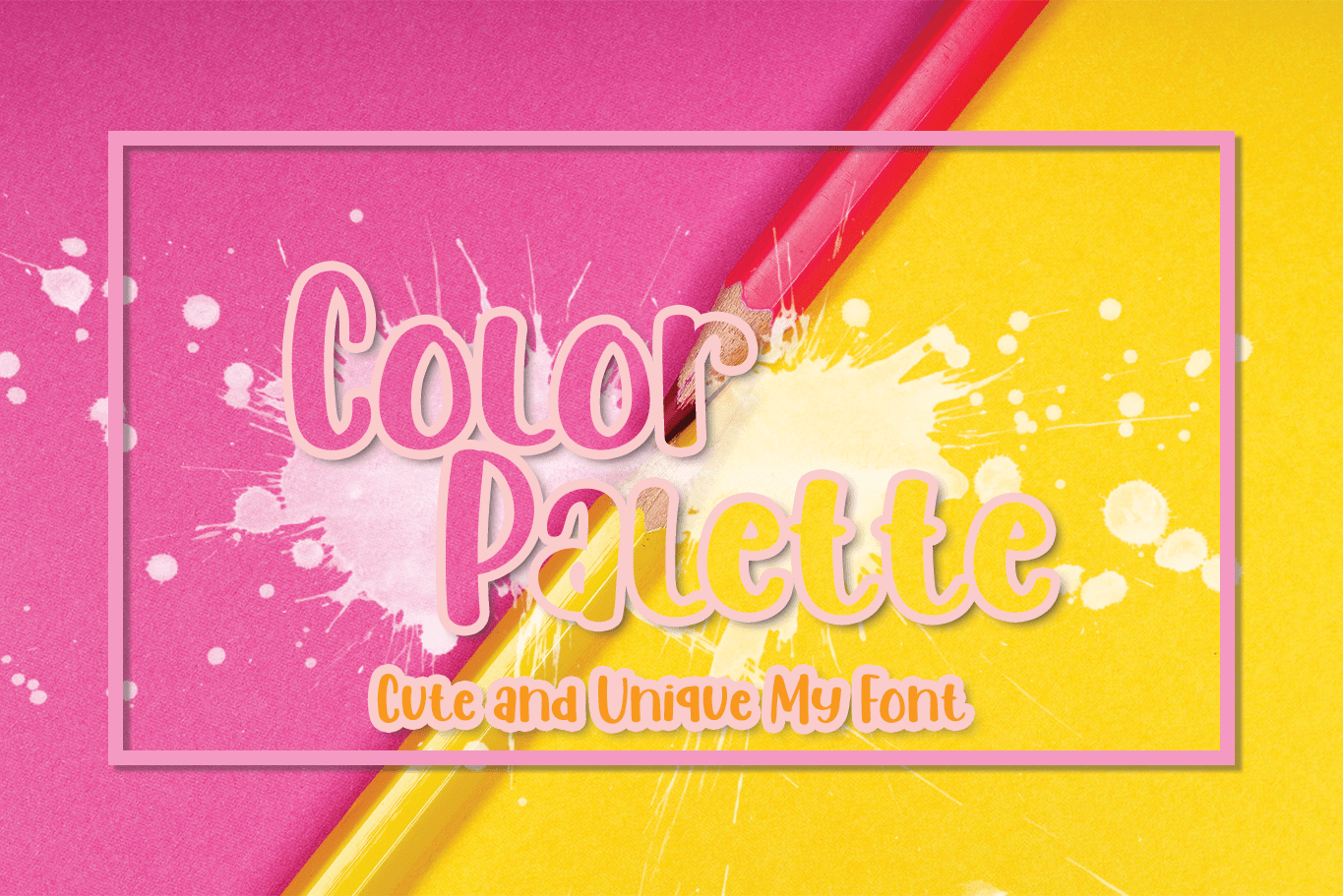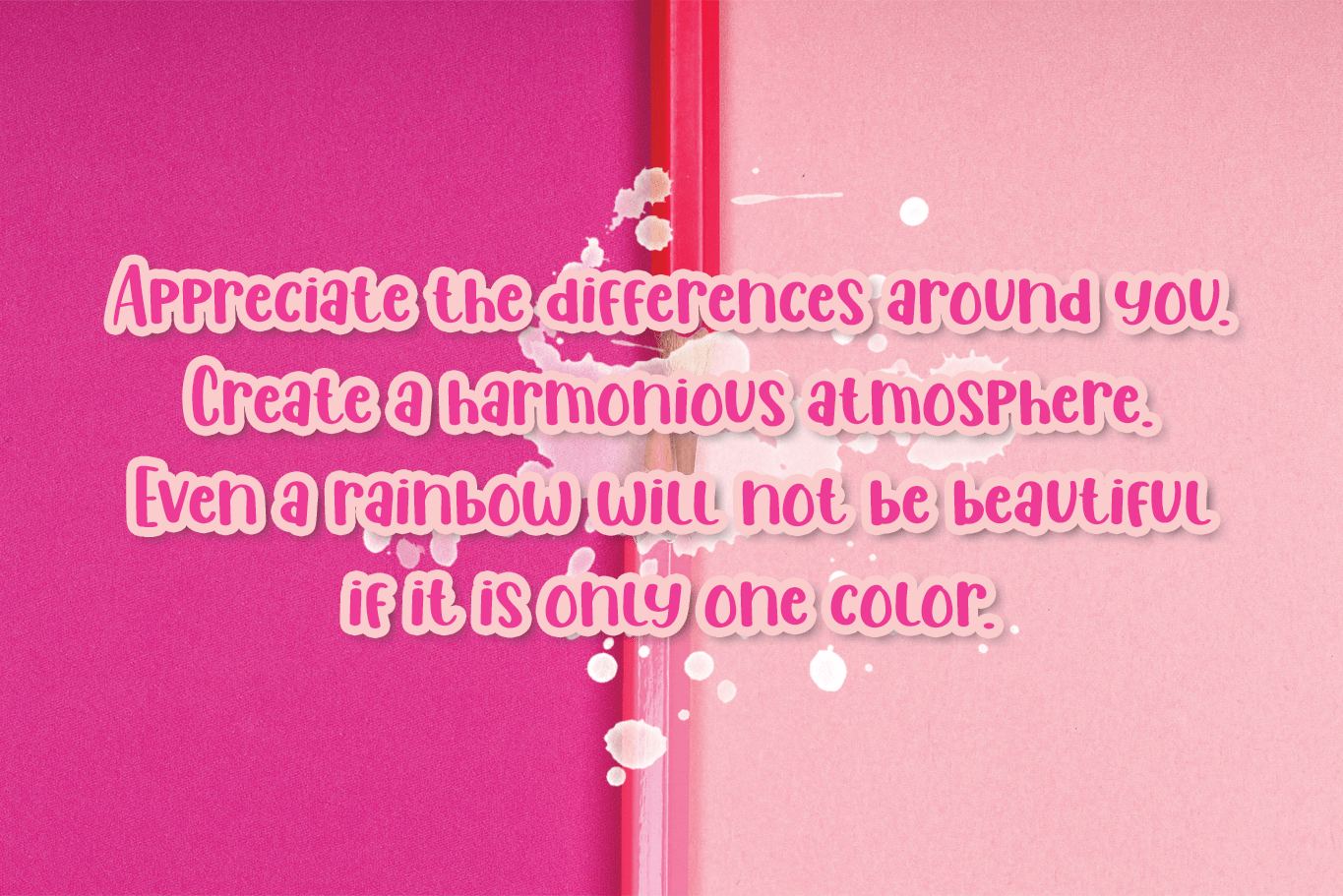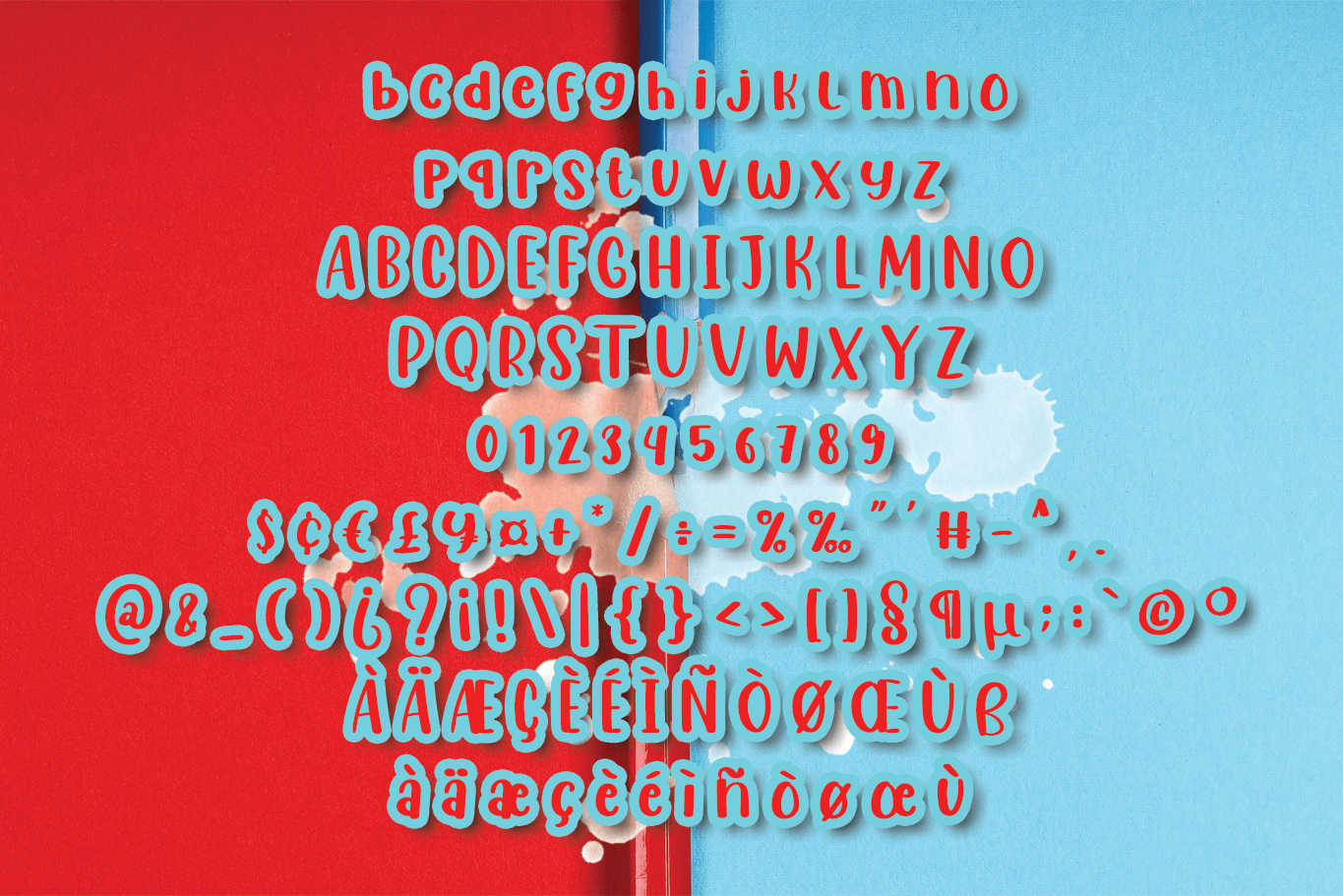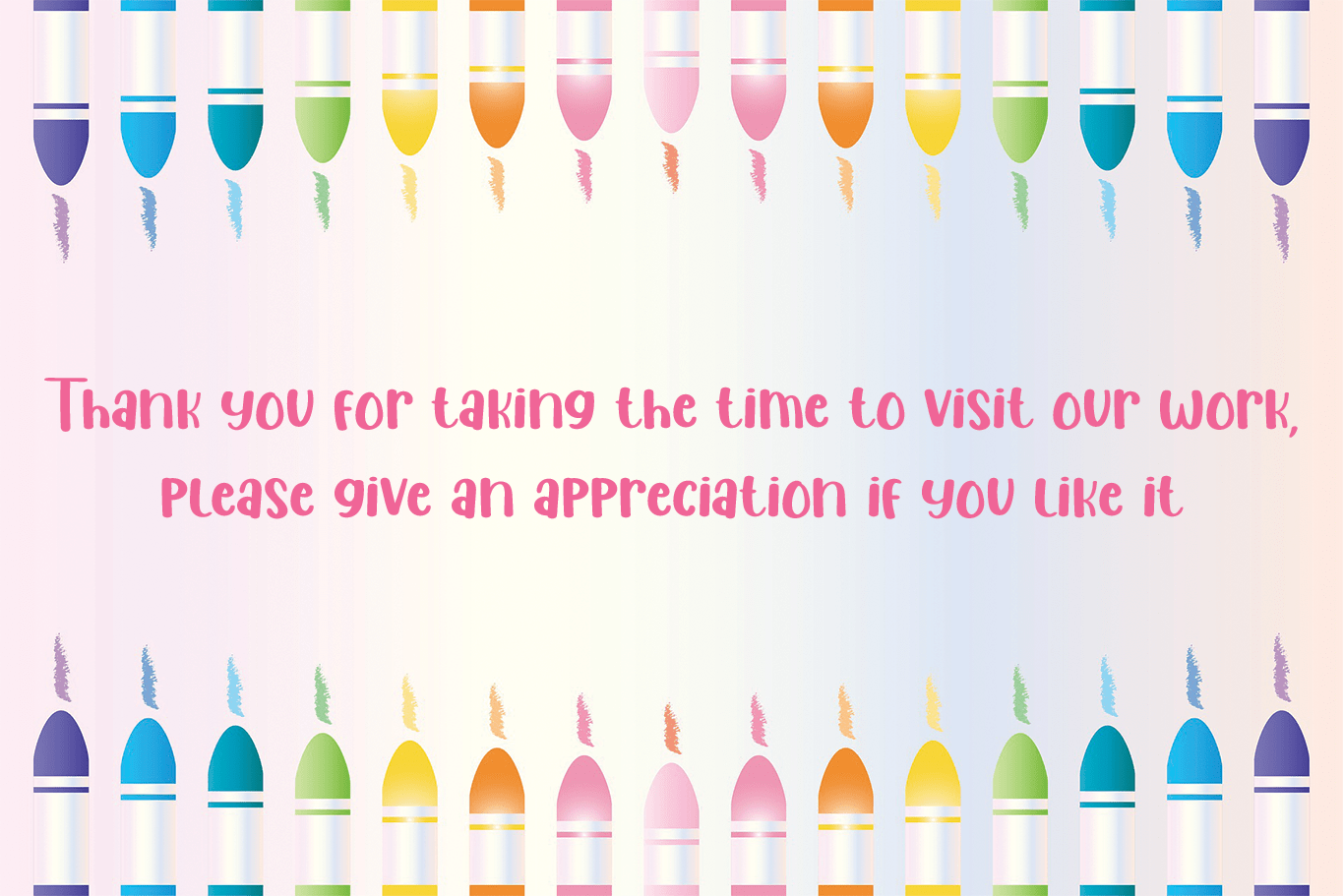
Crayon Font
Crayon Display Font
Crayon Font is a neat, quirky and relaxed display font. Whether you use it for cartoon related designs, children games or just any creation that requires a lovely touch, this font will be an amazing choice.